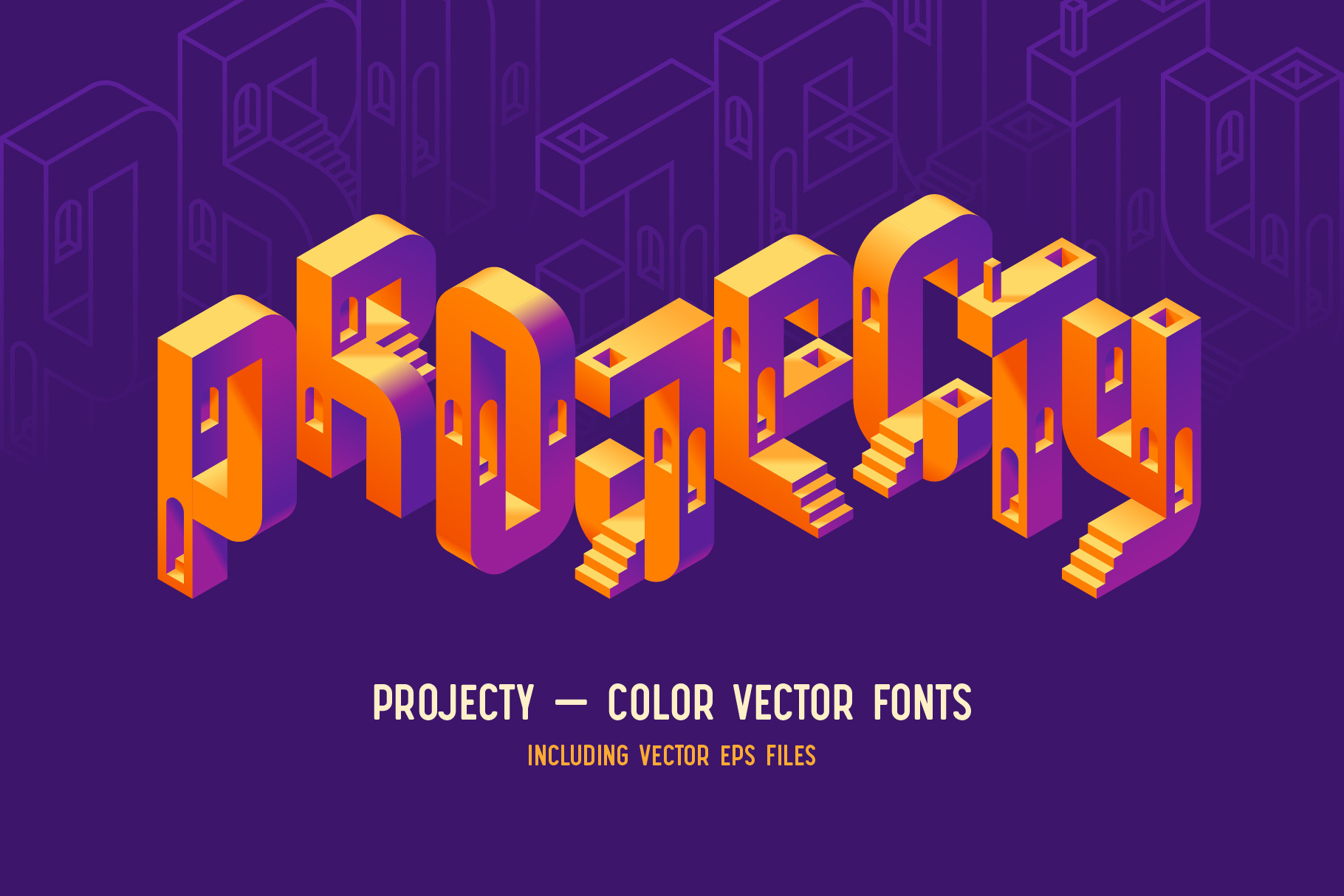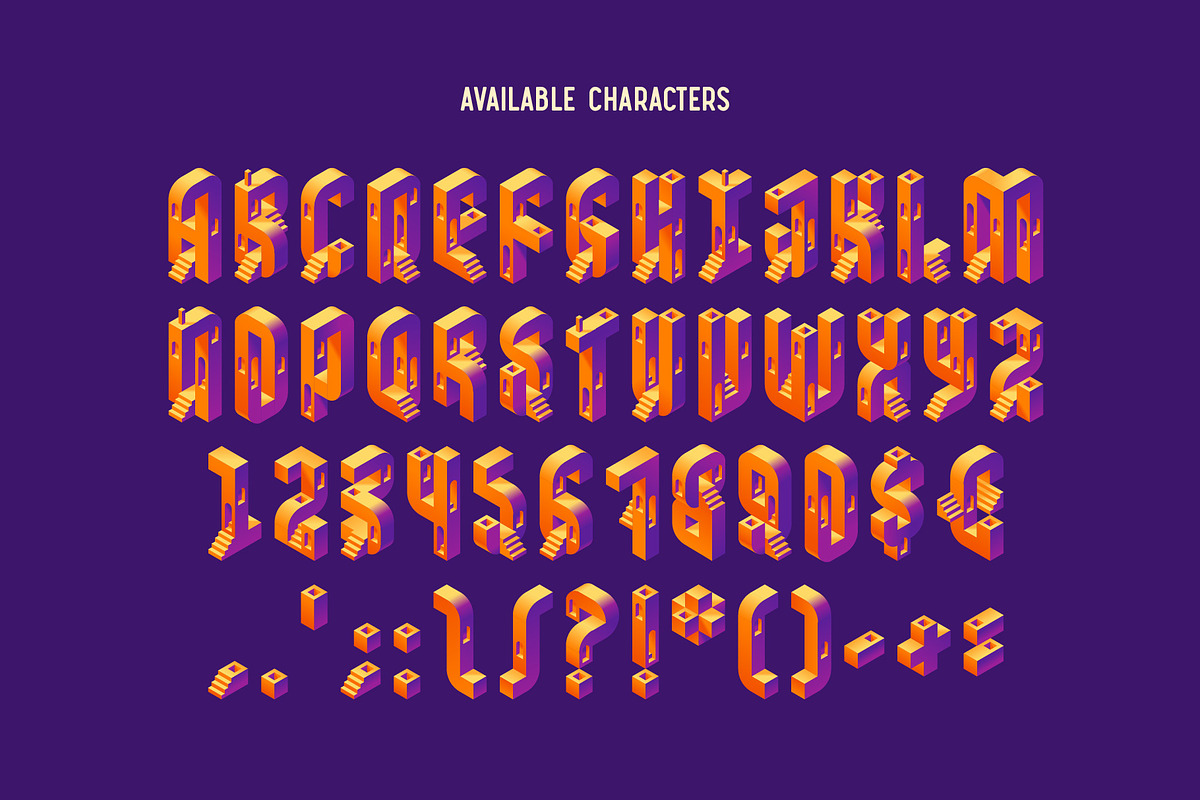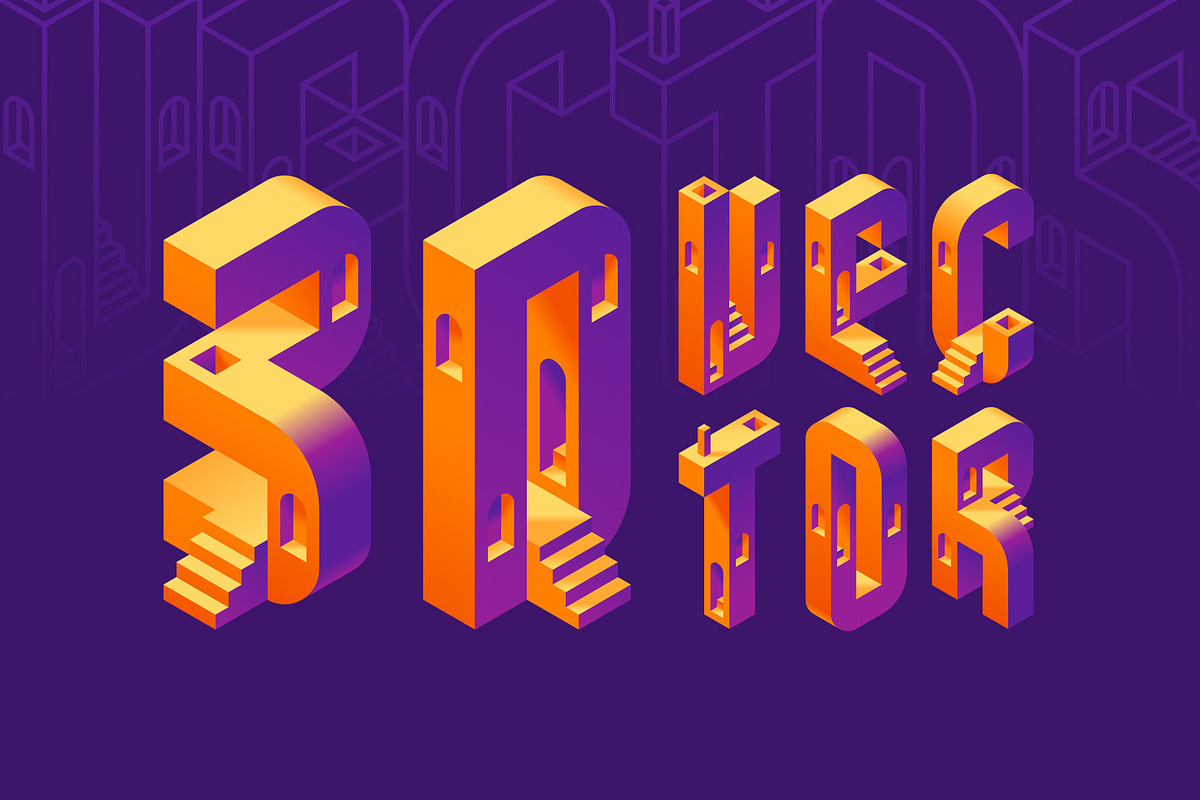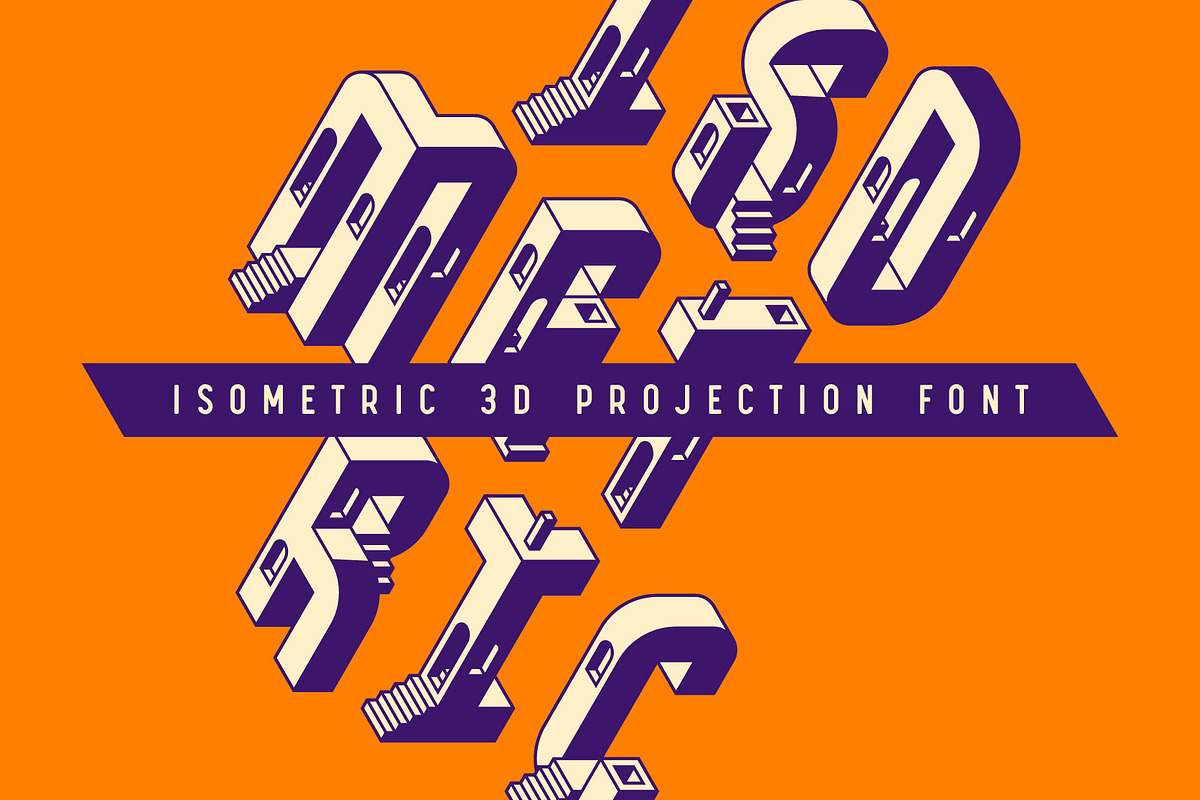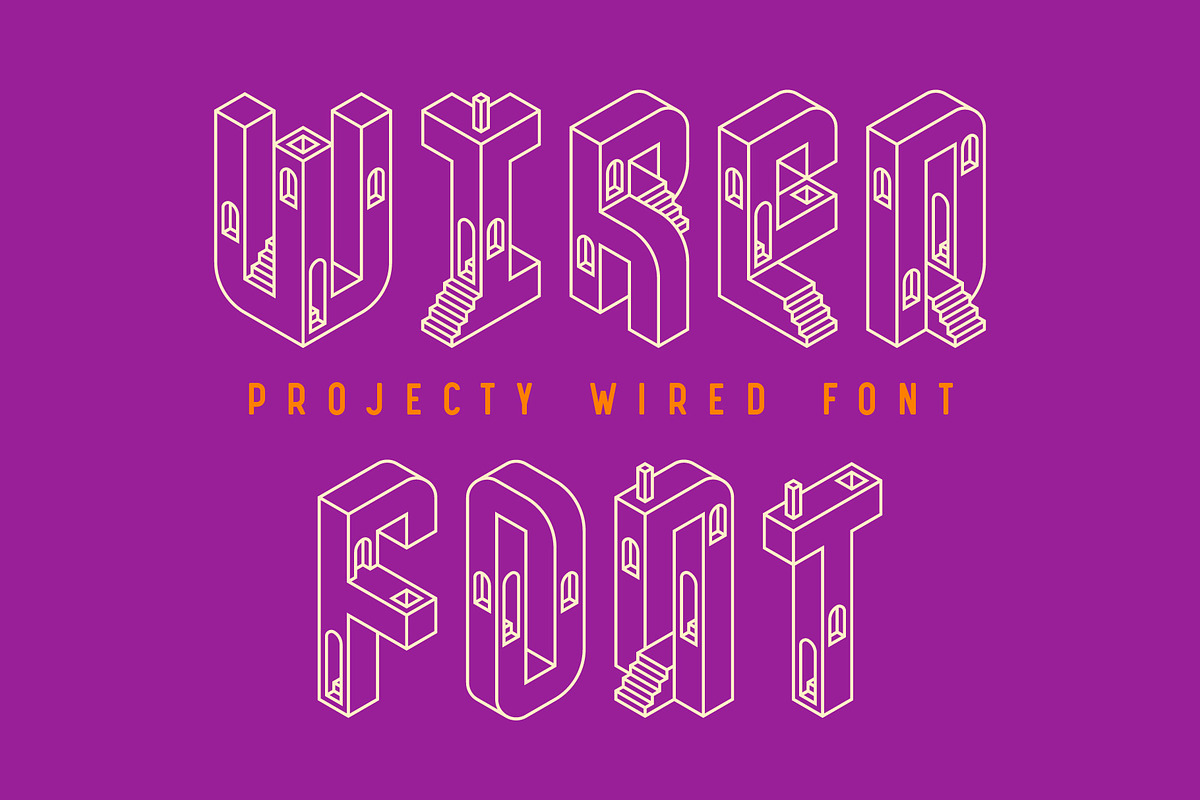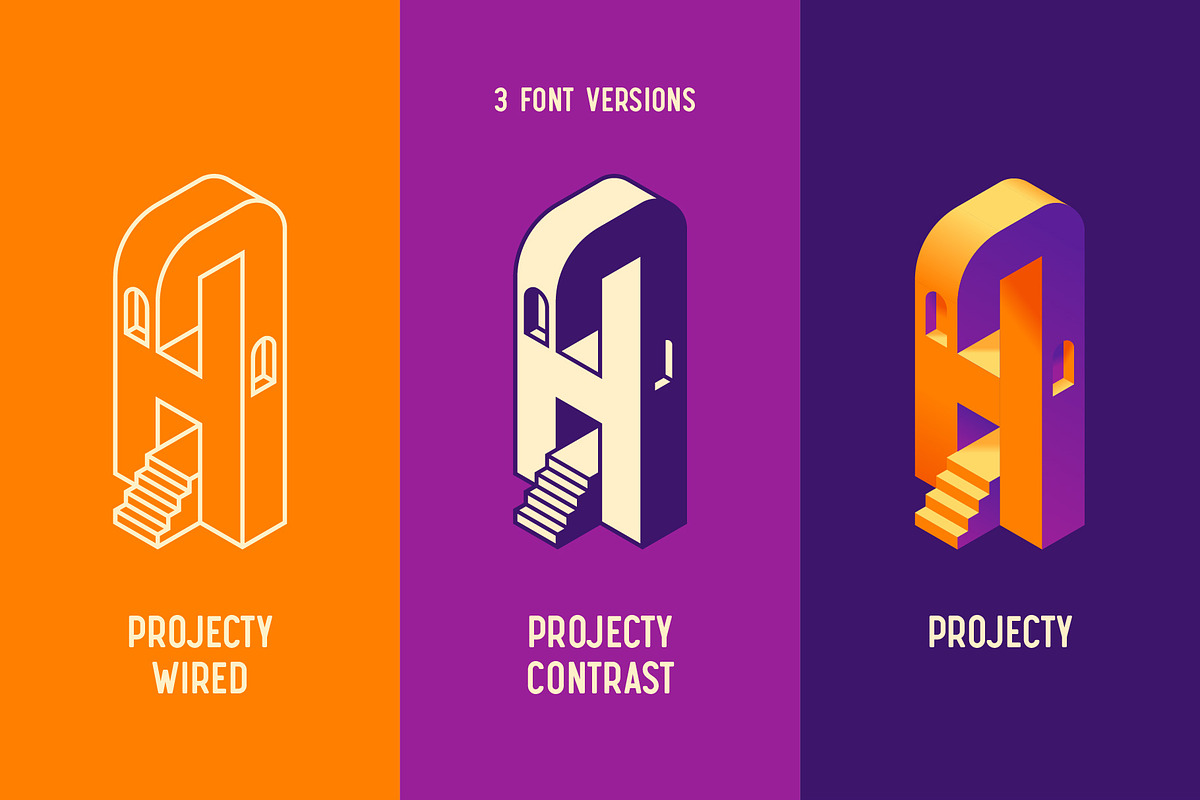
Projecty - Color Vector Font
Hello! Presenting a vector font set – Projecty. It's a creative typeface made in 3d isometric shape with stairs and windows. One color font and two classic fonts are included. Also a set of vector EPS and raster PNG files with transparent background is included. Consider that only english language and basic punctuation is supported, please check out the screenshot with all available characters.